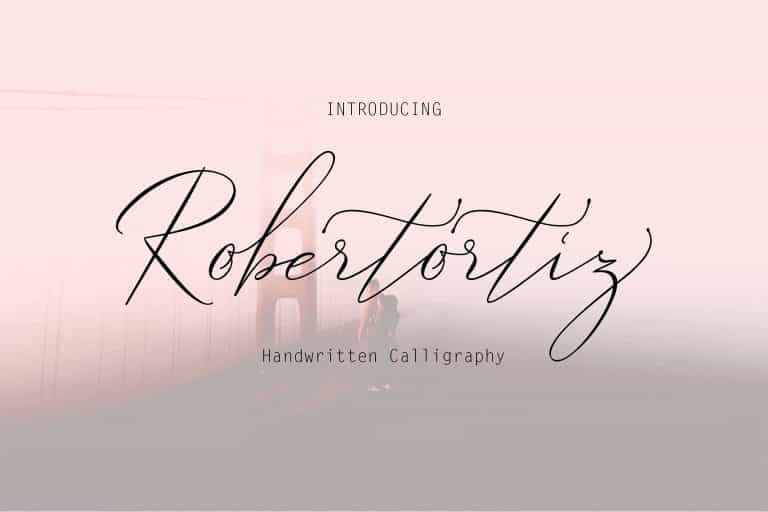
Introducing Robertortiz Font! Robertortiz was the creator and he shared this design with Cropstudio. Robertortiz is also another exquisite modern signature font that uses the classic calligraphy style in a new way. unites from the copperplate to contemporary typeface with a dancing baseline, modern and elegant style.